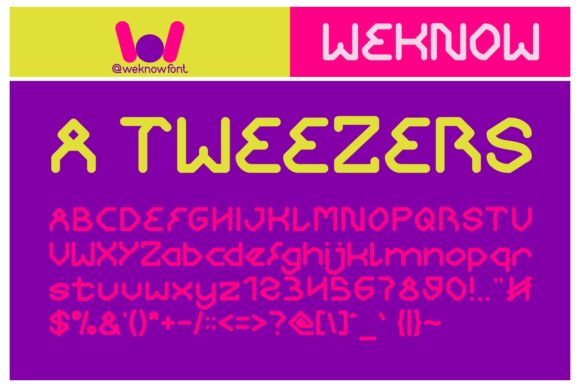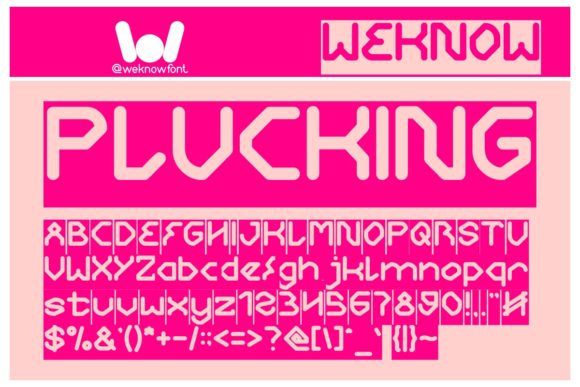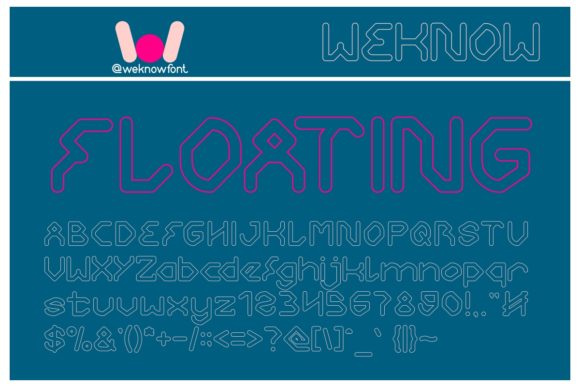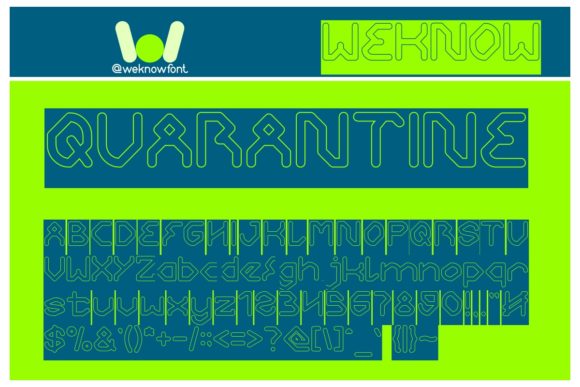
Introduction to Get Ready Font
Get Ready is a futuristic and abstract display font.
Incredibly unique and minimalist, this font will fit a variety of project ideas .
Key Features of Get Ready Font